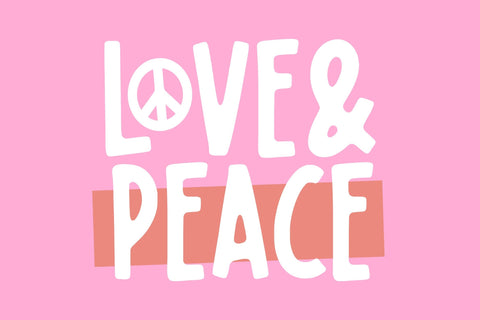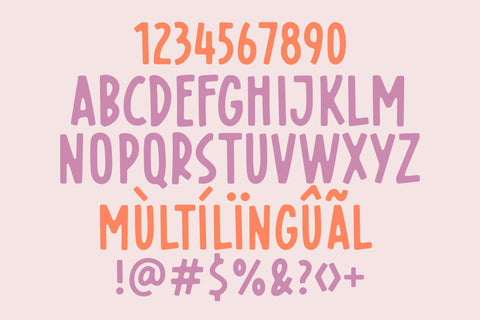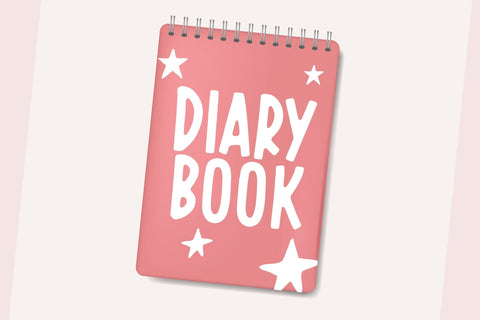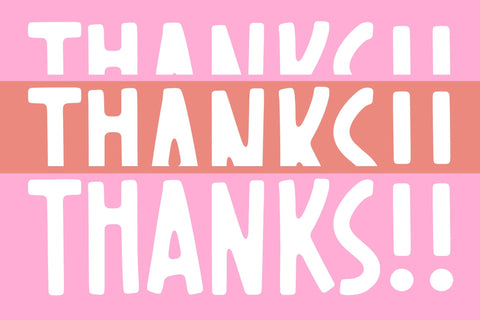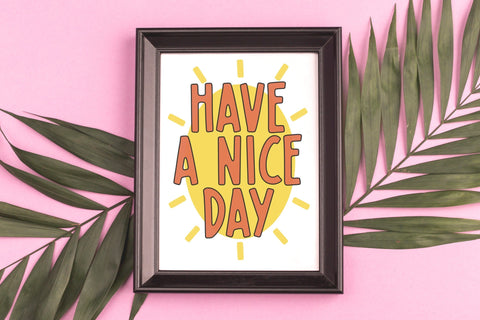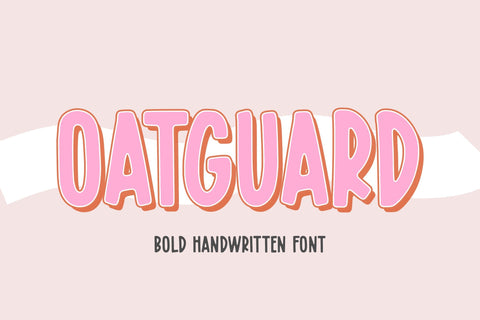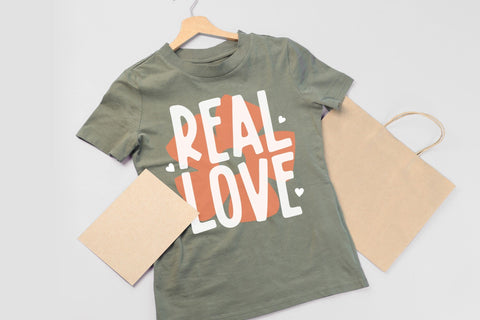
Oatguard Bold Handlettered Font
OATGUARD is a Bold Handwritten Font. It is suitable for svg designs, mug decorations, pottery, shirts, hats, tote bags, card making, wall art, interior prints, and various other creations. Whatever the topic, this font will be a wonderful asset to your font library, as it has the potential to enhance any creation.
This font only has all uppercase letters, but if accessed with lowercase letters it will automatically become uppercase.